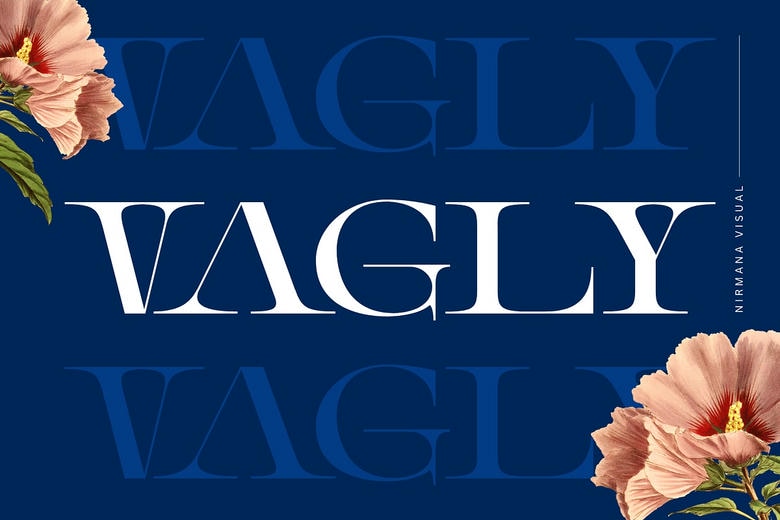
Vagly Font
Vagly Font beautifully balance of the typography that is perfect for a range of designs, whether logos & branding, social media posts, advertisements, & product designs.
Vagly Serif Font